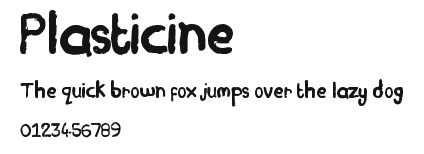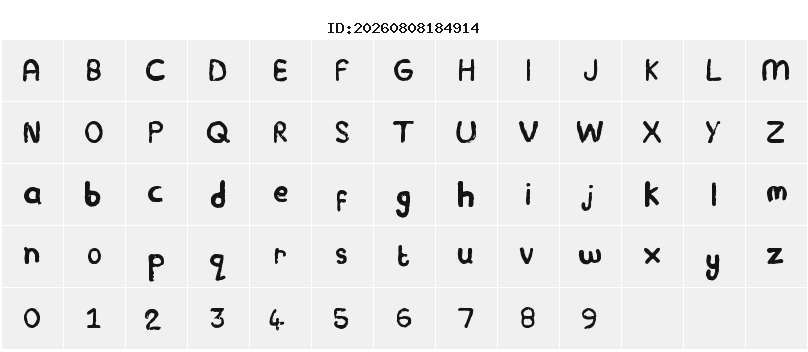
Plasticine Preview
• Font Name: Plasticine
• Full Font Name: Plasticine
• Version: Version 1.00 February 12, 2009, initial release
About Plasticine.ttf
Plasticine.ttf is a modern, elegant sans-serif font designed for ultimate readability and visual harmony. Perfect for branding, headlines, web design, and print materials.